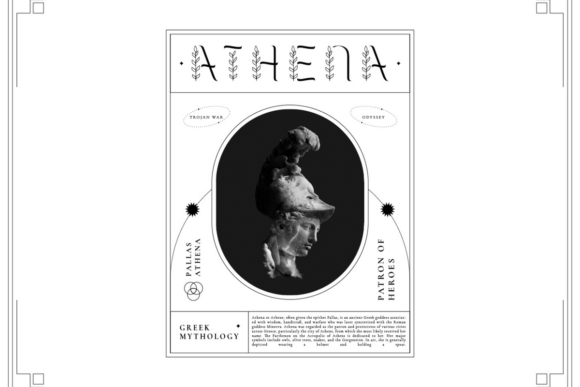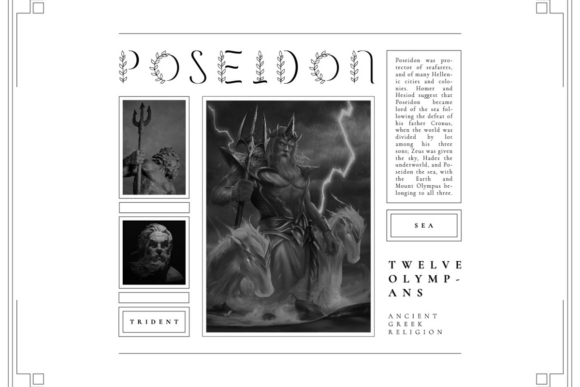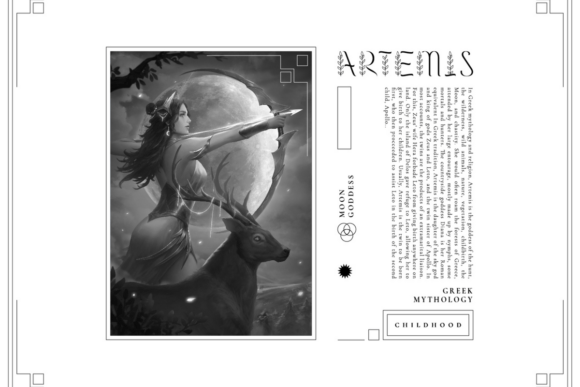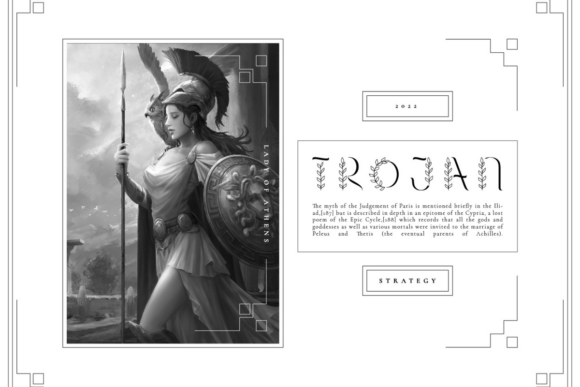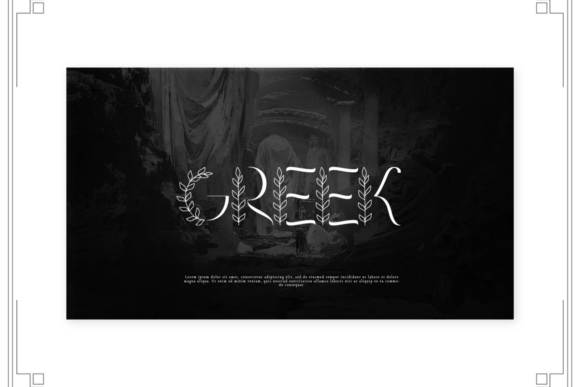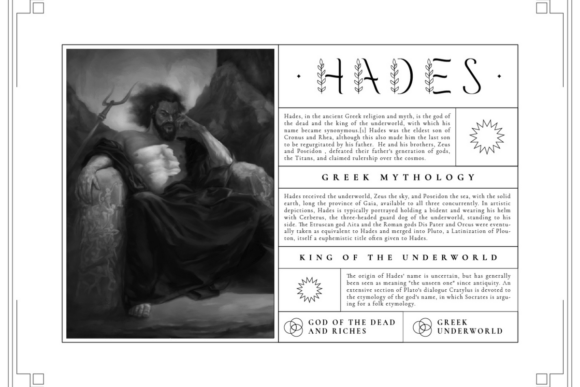
Introduction to Hera Font
Hera is the fresh decorative font inspired by one of the gods in the Greek Myths, the Goddess of Marriage named Hera.
Hera has an extraordinary character, the โdiademโ or Greek Myth Goddessโ crown is perfectly added as special creatures inside the font Hera is bringing elegant, intimate, classic, and gorgeous feels.
Key Features of Hera Font